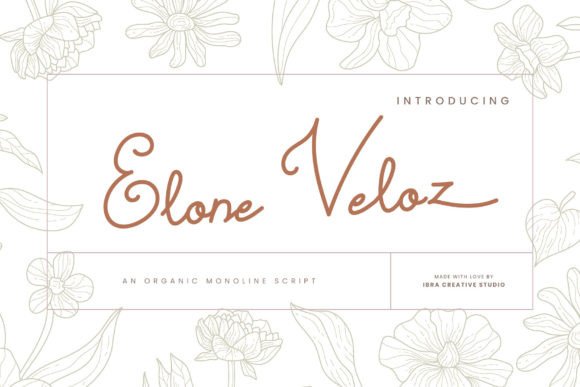
Adorn your digital creations with Elone Veloz, a breathtaking script font that captures the raw beauty of nature's flow. Inspired by the delicate curves of a snail's trail, this organic font dances across your screen with harmonious grace and playful elegance. Each letter, meticulously crafted as if written in one fluid stroke, exudes a handmade charm that adds a touch of authenticity to your designs.
Designed with a contemporary monoline flair, Elone Veloz effortlessly blends modern sophistication with timeless allure. Its versatility shines through its ability to adapt seamlessly to both elegant and casual aesthetics, making it the perfect choice for a diverse range of creative projects. Whether you're crafting wedding invitations and stationery that exude romance, or creating nature-inspired branding and packaging that evokes a sense of connection with the earth, Elone Veloz will elevate your designs to new heights.
With its inherent organic feel, Elone Veloz adds a calming and inviting touch to any project. Its serene and enchanting nature evokes a sense of tranquility, while its delicate curves create a warm and welcoming atmosphere. Experience the magic of Elone Veloz, a font that encapsulates the essence of nature's beauty and transforms your digital creations into works of art.